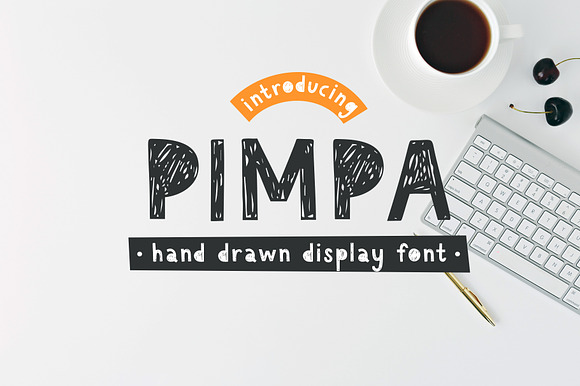
Pimpa Font
Pimpa Font by SimpleThings is a font selected for branding, posters, packaging, typography.
Why Pimpa Font is worth a look
Pimpa Font by SimpleThings fits naturally into Branding, posters, packaging, typography.